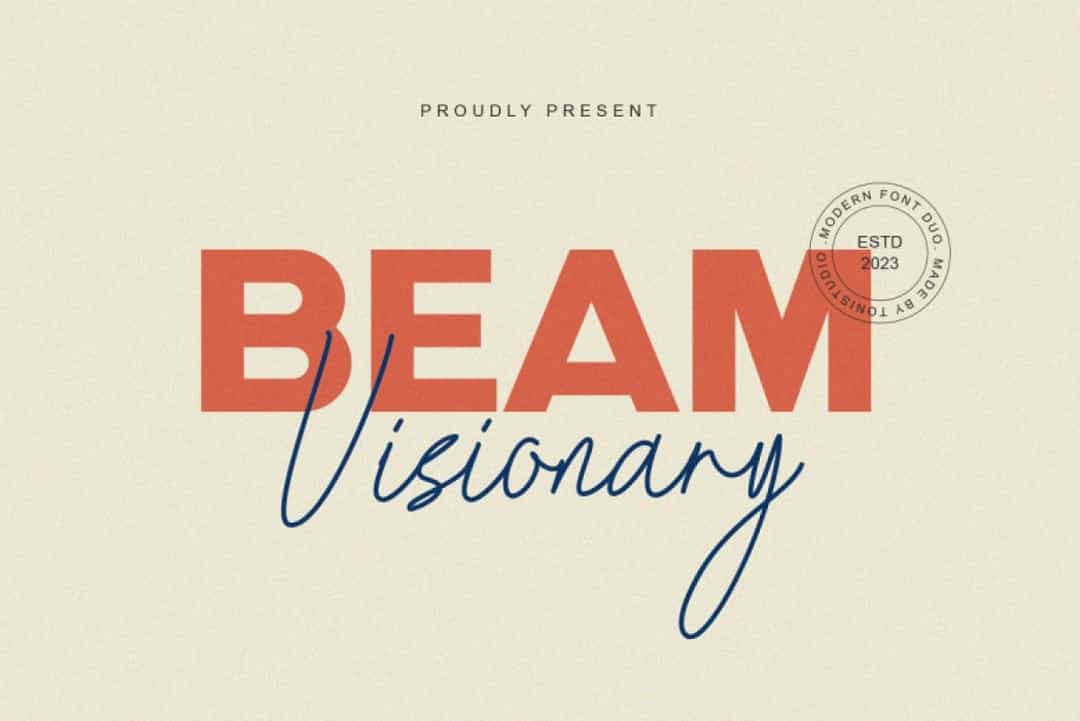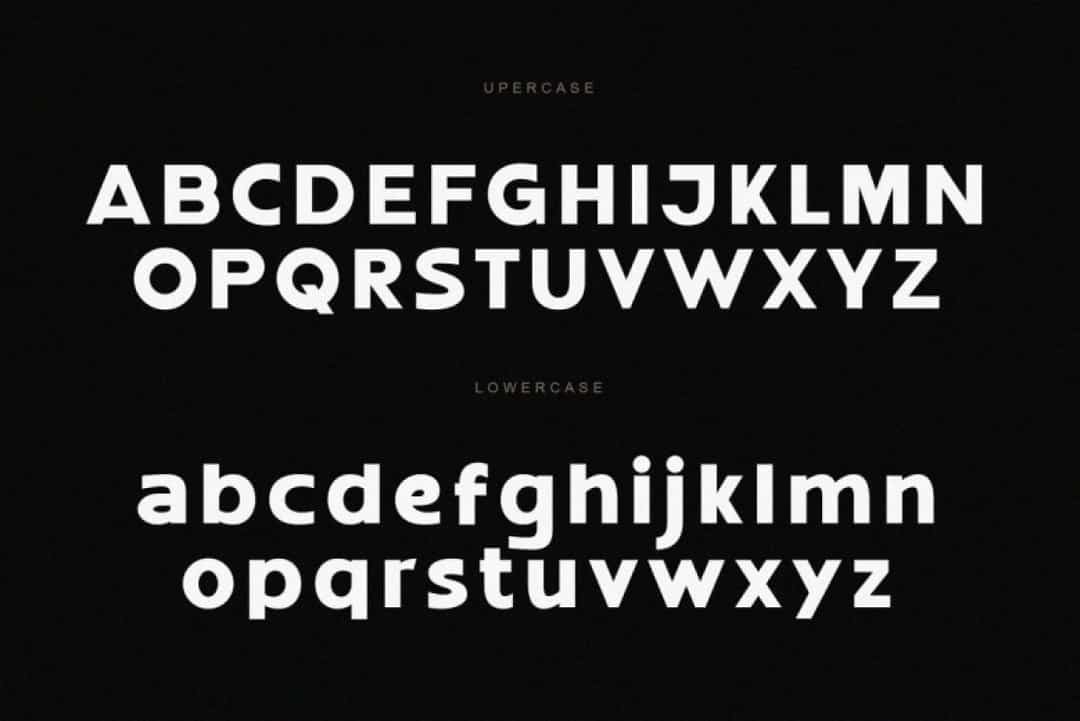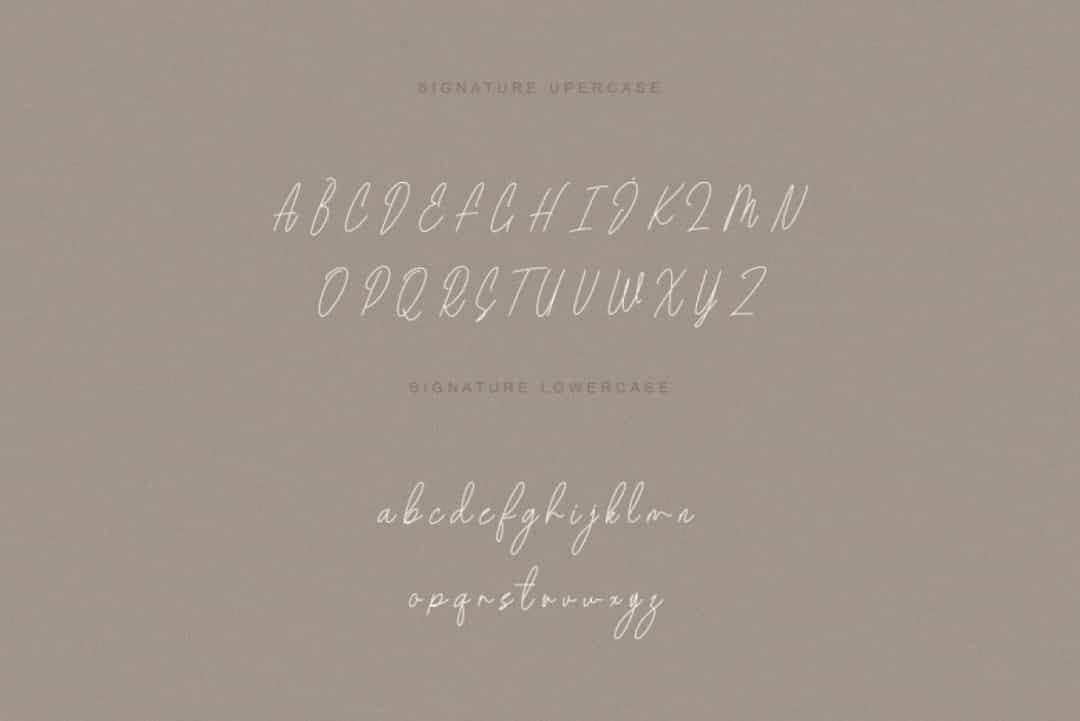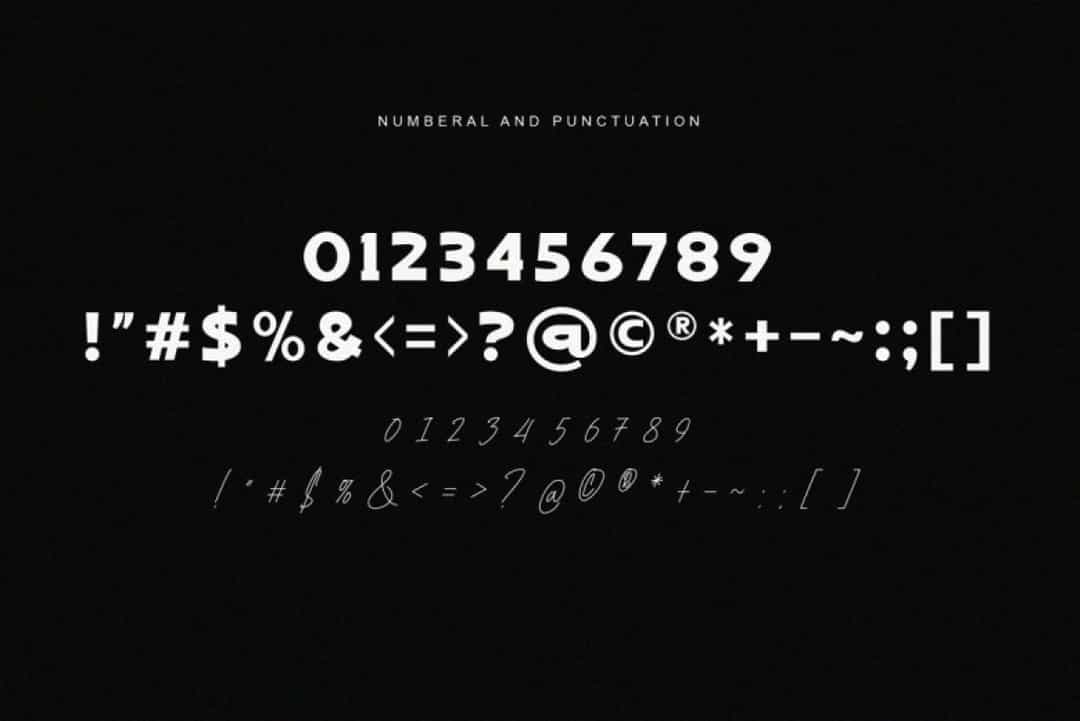
Discover Beam Visionary Font, part of the Sans Serif Handwritten collection—a versatile and unique font perfect for adding a personal touch to your projects. Download it for free and enjoy crafting designs with style, from invitations to social media posts. This font is available exclusively for personal use, giving you the freedom to create without limits. Unlock your creativity with Beam Visionary Font today!
Beam Visionary is an elegant and soft typographic sans serif fonts combined with an eye-catching script flow, designed for use in logos posters wedding invitations posters blogs posts on blogs Facebook etc.!!